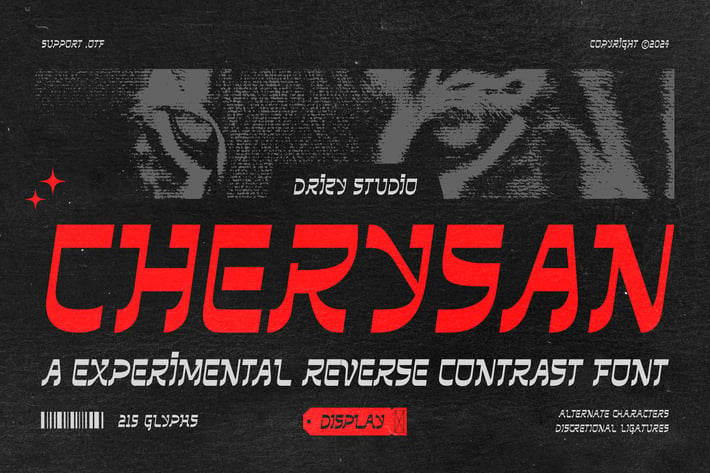
Cherysan - Experimental Reverse Contrast Font
Cherysan is a bold and innovative typeface that pushes the boundaries of traditional design. With its unique reverse contrast style, Cherysan exudes a Dark Futuristic aesthetic perfect for the music industry. It's unconventional strokes and striking character shapes create a captivating visual rhythm, making it ideal for album covers, concert posters, and edgy branding projects. Whether you're crafting a visual identity for a techno artist or designing immersive event visuals, Cherysan adds an avant-garde touch that demands attention and sets your designs apart.
Cherysan features:
- Character Set (All Caps)
- Punctuation & Numbers
- Multilingual
- Discretional Ligatures
Elevate and explore the design possibilities with this Dark Futuristic Font!